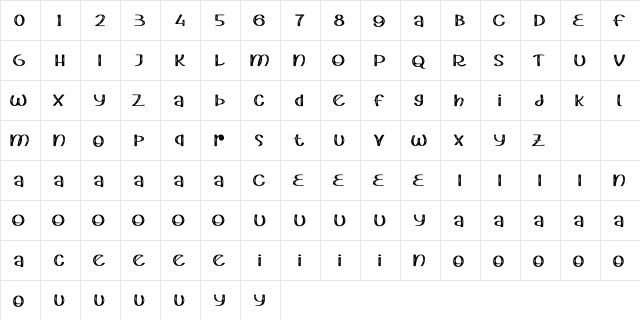
Blonding Panda Regular
| Foundry | Airotype Design |
| Designer | Rofiq Soelta |
Design Context for Blonding Panda Typeface
Blonding Panda is a composed and adaptable typeface that performs quietly and consistently across a wide range of design contexts.